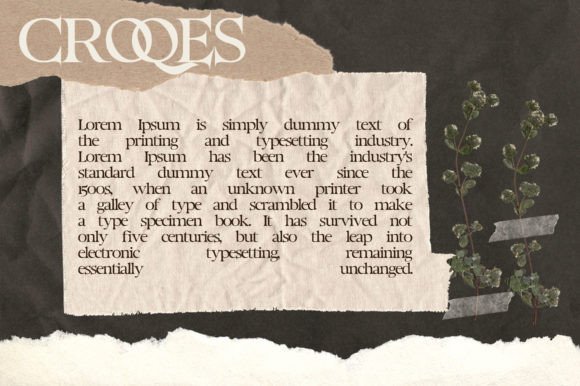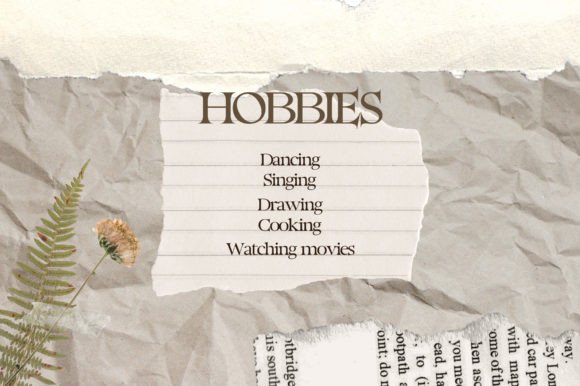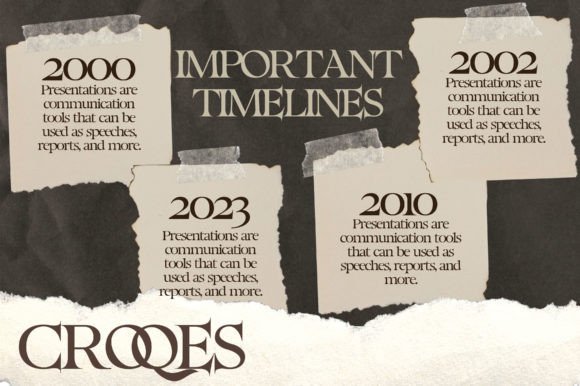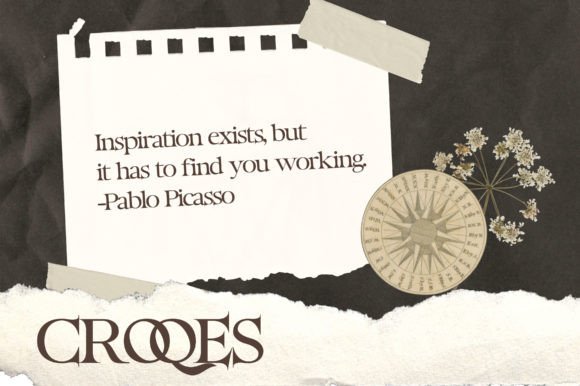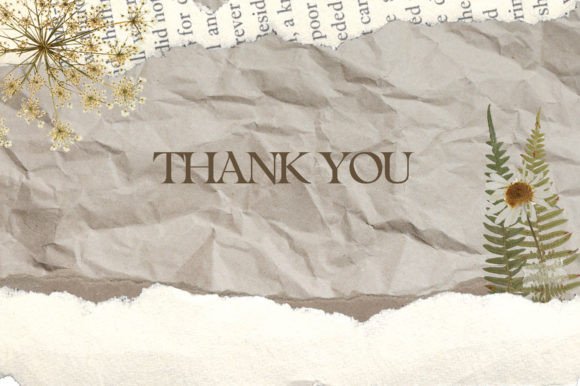
Introduction to Croqes Font
Croqes is an elegant, clean, and minimalistic serif typeface.
Its elegant aspect and accurate glyph structure make it the perfect choice when it comes to packaging design, fragrance design, titling, cosmetics design, website banners, and many more Use it in your creations so you can notice how fastly it becomes one of your favorite fonts.
Key Features of Croqes Font
Why Choose Croqes Font?
Croqes Font offers exceptional quality and versatility, making it a valuable addition to your design toolkit. Whether you’re creating for personal projects or commercial use, Croqes Font delivers professional results.